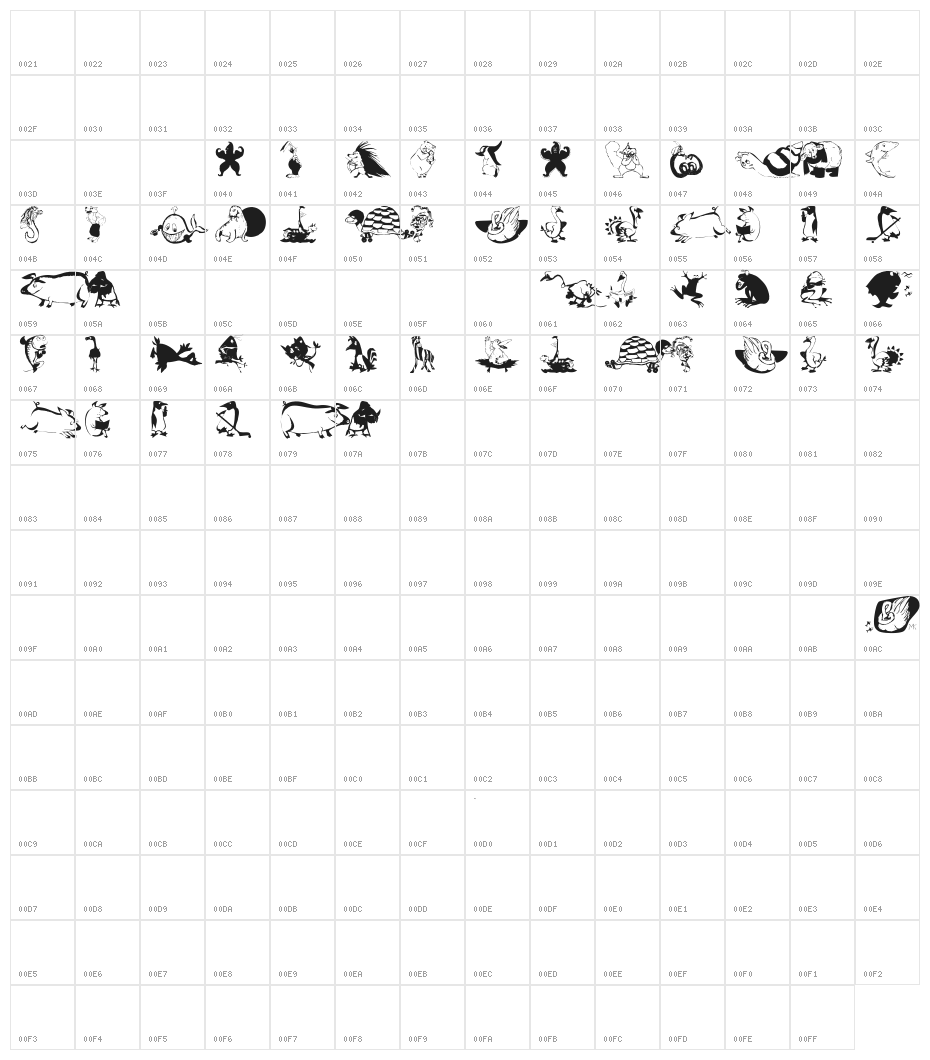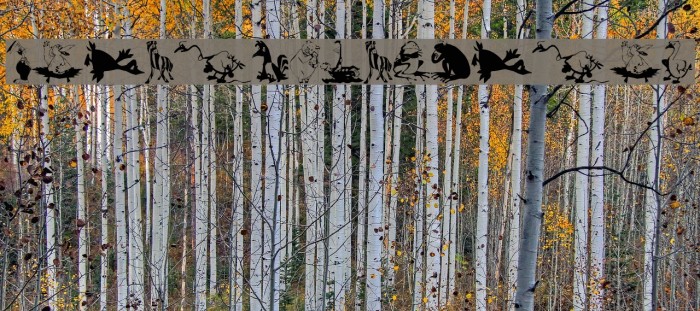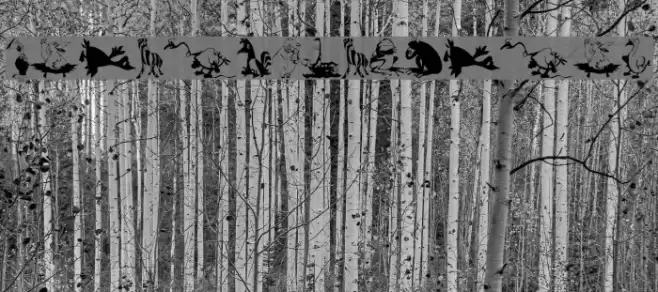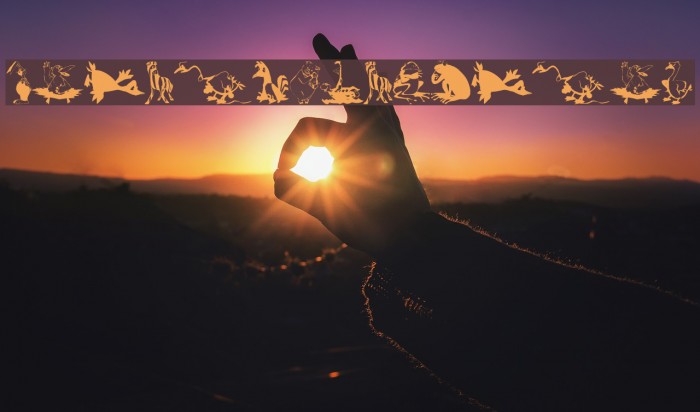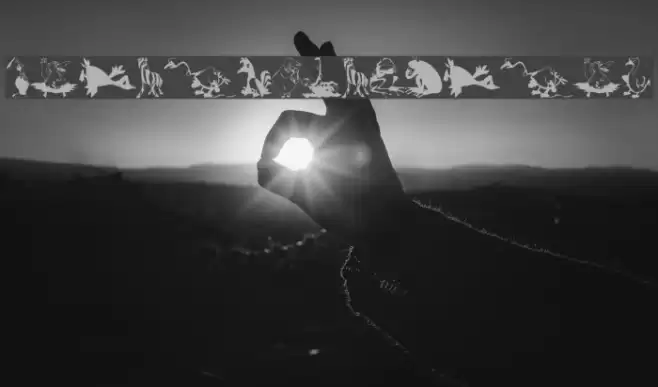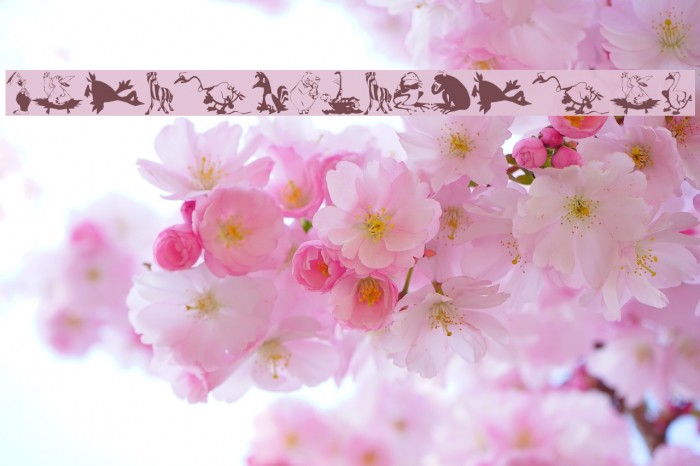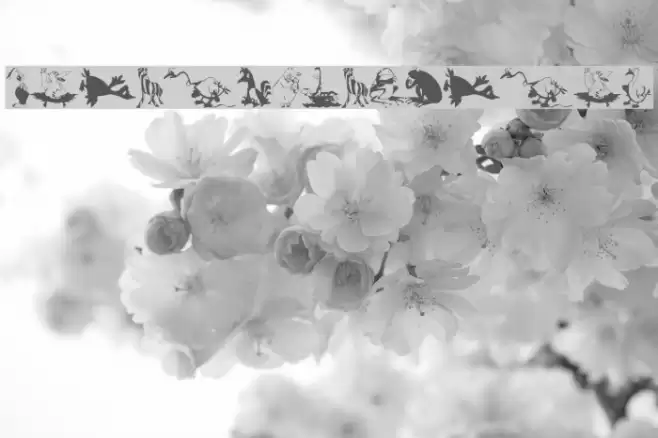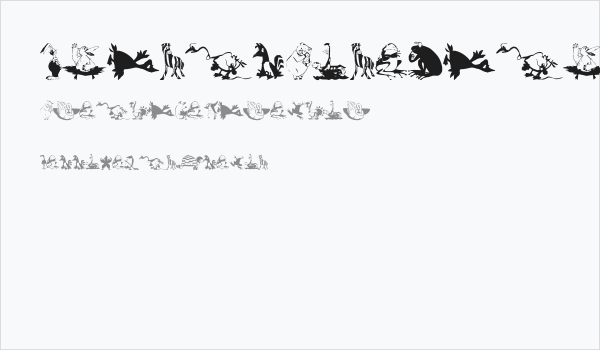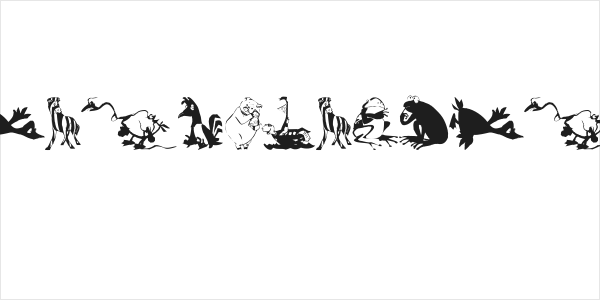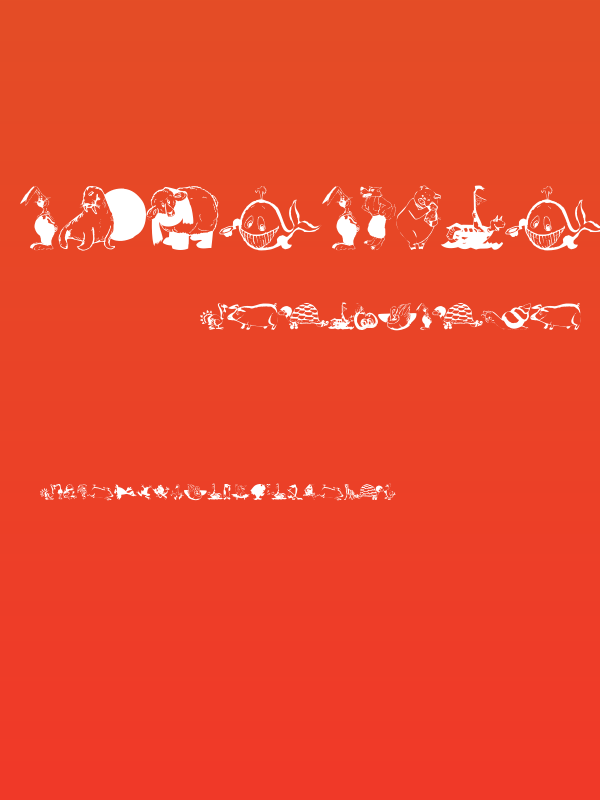
AnimalComedians Font
AnimalComedians Description
A playful and whimsical collection of animal illustrations, each character representing a letter or symbol in a humorous cartoon style, with exaggerated features and expressive poses. The glyphs are highly decorative and not traditional letterforms, focusing on visual storytelling rather than legibility.
| Overall Style | Whimsical, Playful, Cartoonish, Decorative |
| Use Case | Display, Themed headlines, ChildrenΓ’β¬β’s content, Logos, Posters |
| Proposed Projects | ChildrenΓ’β¬β’s books, educational materials, party invitations, playful branding, posters, greeting cards. |